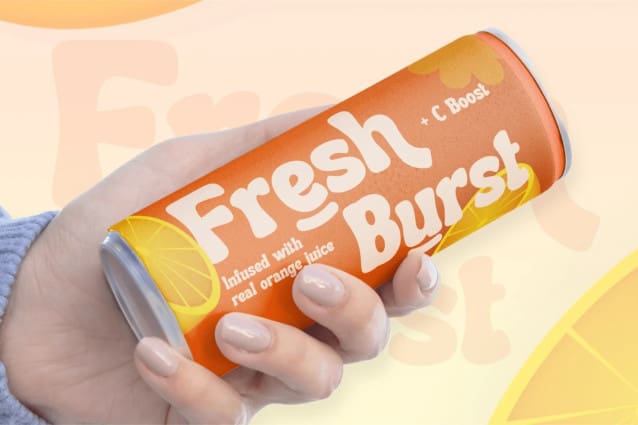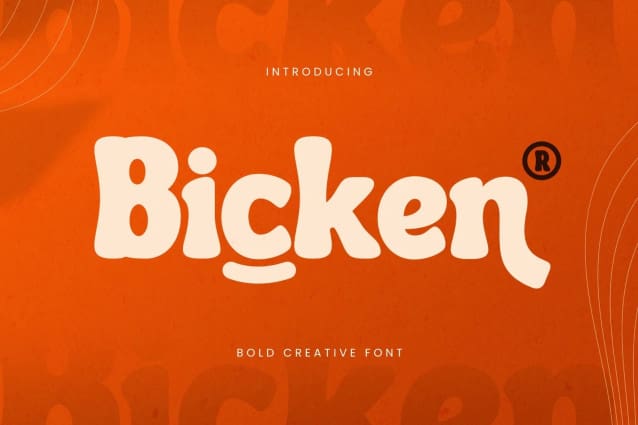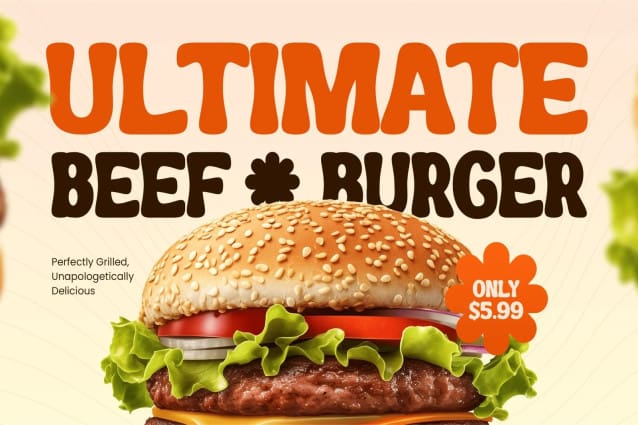
Bicken Playful Font
Bicken Playful Font – Bold Playful Display Font by Salamahtype, designed to bring energy and fun to your creative projects! With its bold, chunky letterforms and quirky details, Bicken is perfect for adding a lively, vibrant touch to logos, branding, and posters. This font stands out with its dynamic and approachable style, making it an excellent choice for youthful brands, eye-catching campaigns, and designs that demand attention.
Whether you’re crafting a standout logo or a fun poster, Bicken adapts effortlessly to your needs. Its playful personality and versatile design ensure your work feels fresh, exciting, and full of character. Add Bicken to your toolkit and let its bold charm make your designs truly unforgettable!